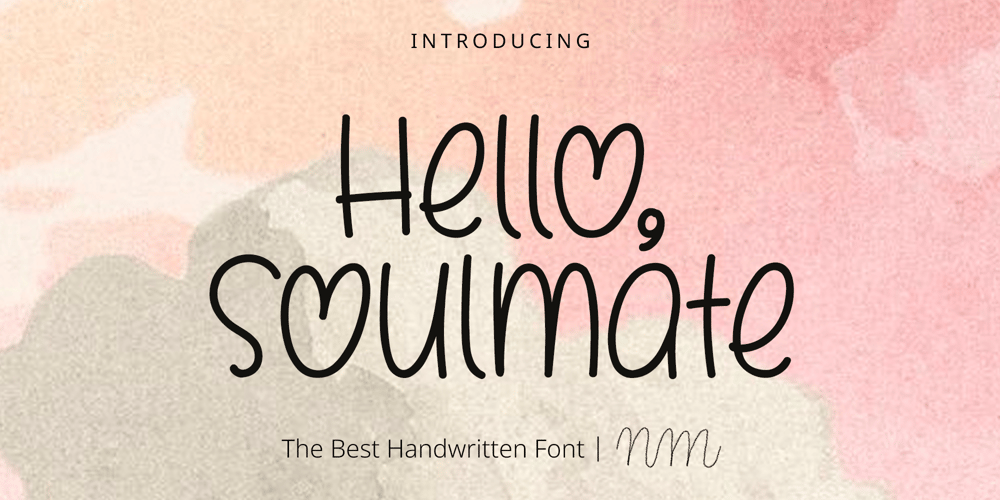
Nm Hello Soulmate Font Family was designed by Minji Noh and published by NM Fonts. Nm Hello Soulmate contains 1 styles and family package options. is a font that converts free handwriting into digital. The uppercase and lowercase “O” are designed in a heart shape to further enhance the loveliness. This font is perfect for working with various digital devices. It is often used in apps such as Notepad, GoodNote on iPad, and can also be used as a system font on mobile. Use this font to show off your style on social media (Instagram, Pinterest, etc.)! Of course it’s perfect for printing! This font will be by your side anytime, anywhere.